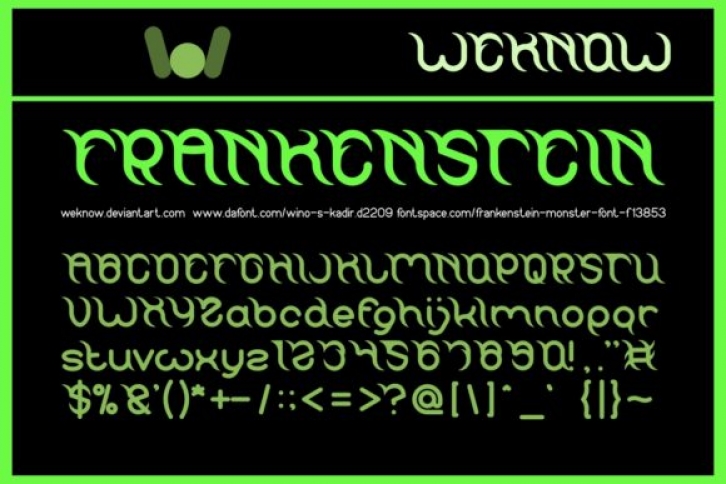
Frankenstein Monster is an incredibly interesting and unique display font. Add this font to your creative ideas and notice how it will make them stand out!